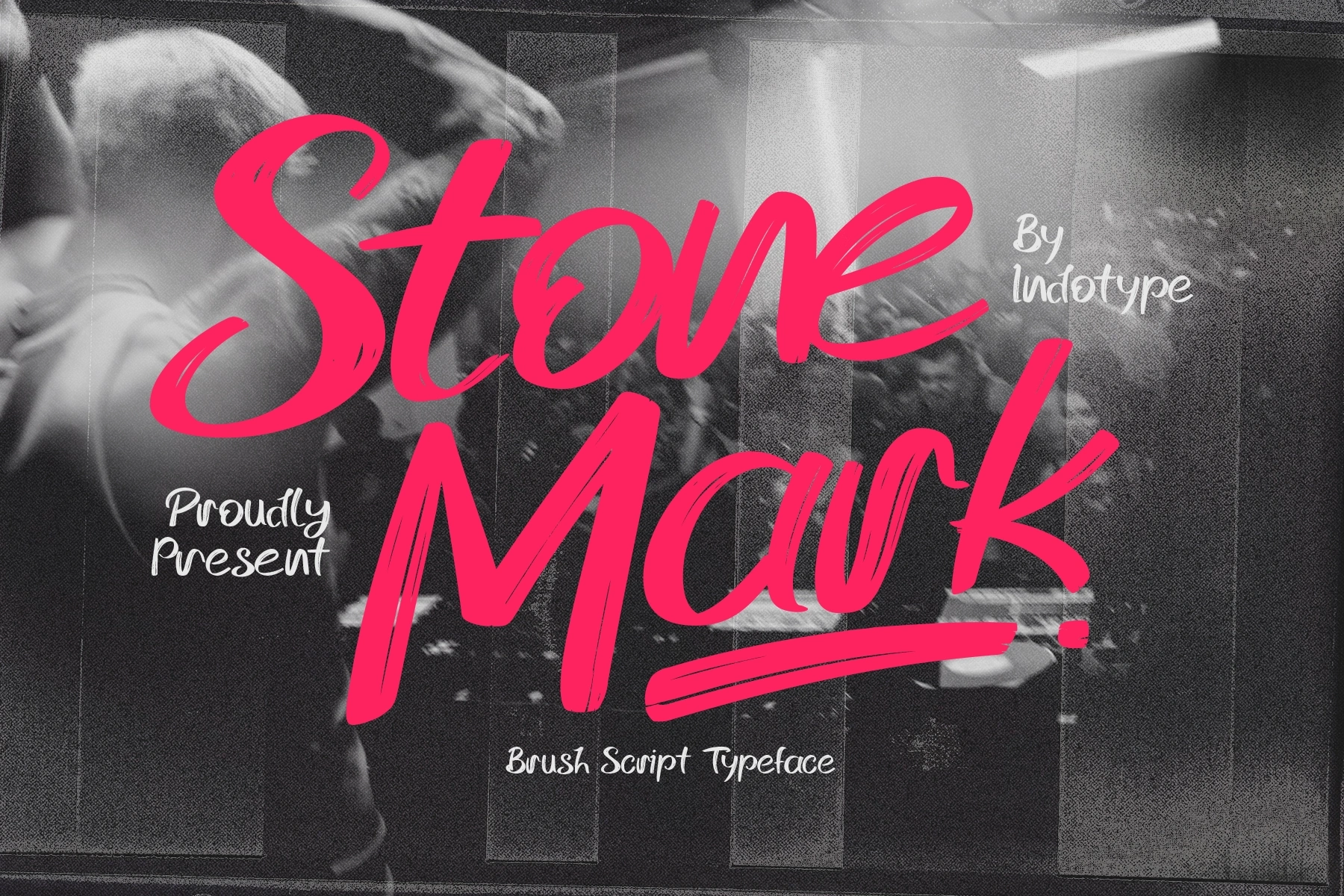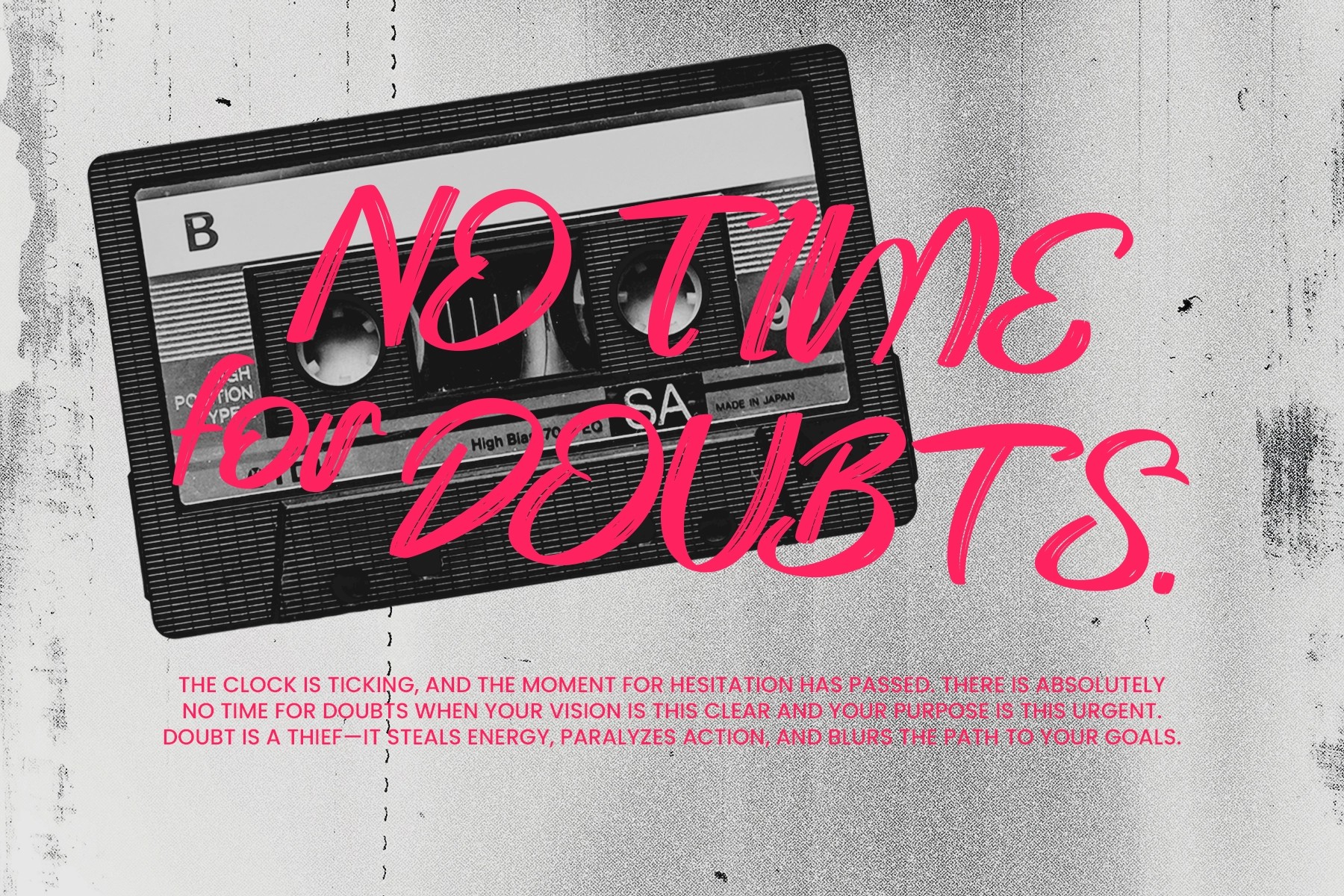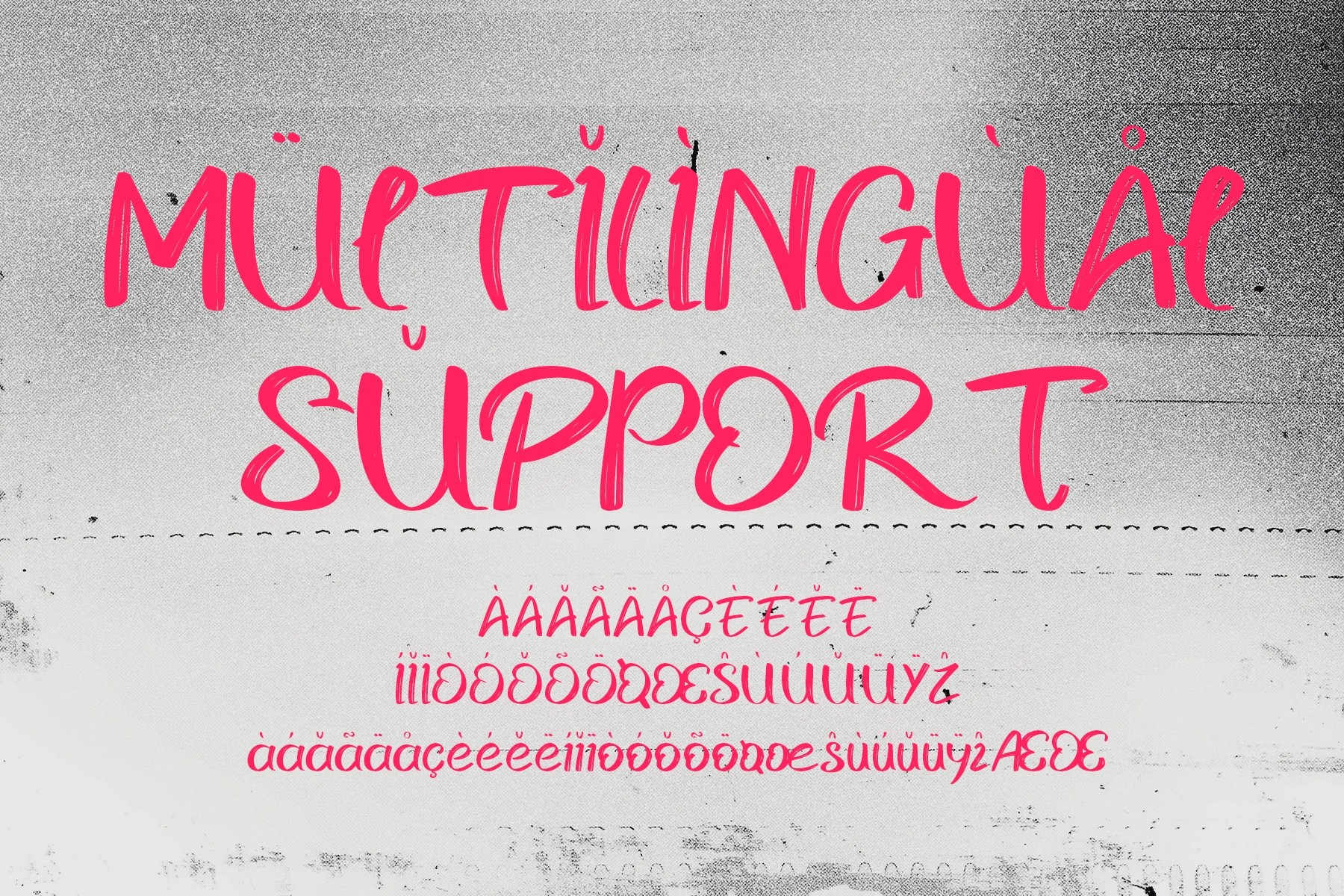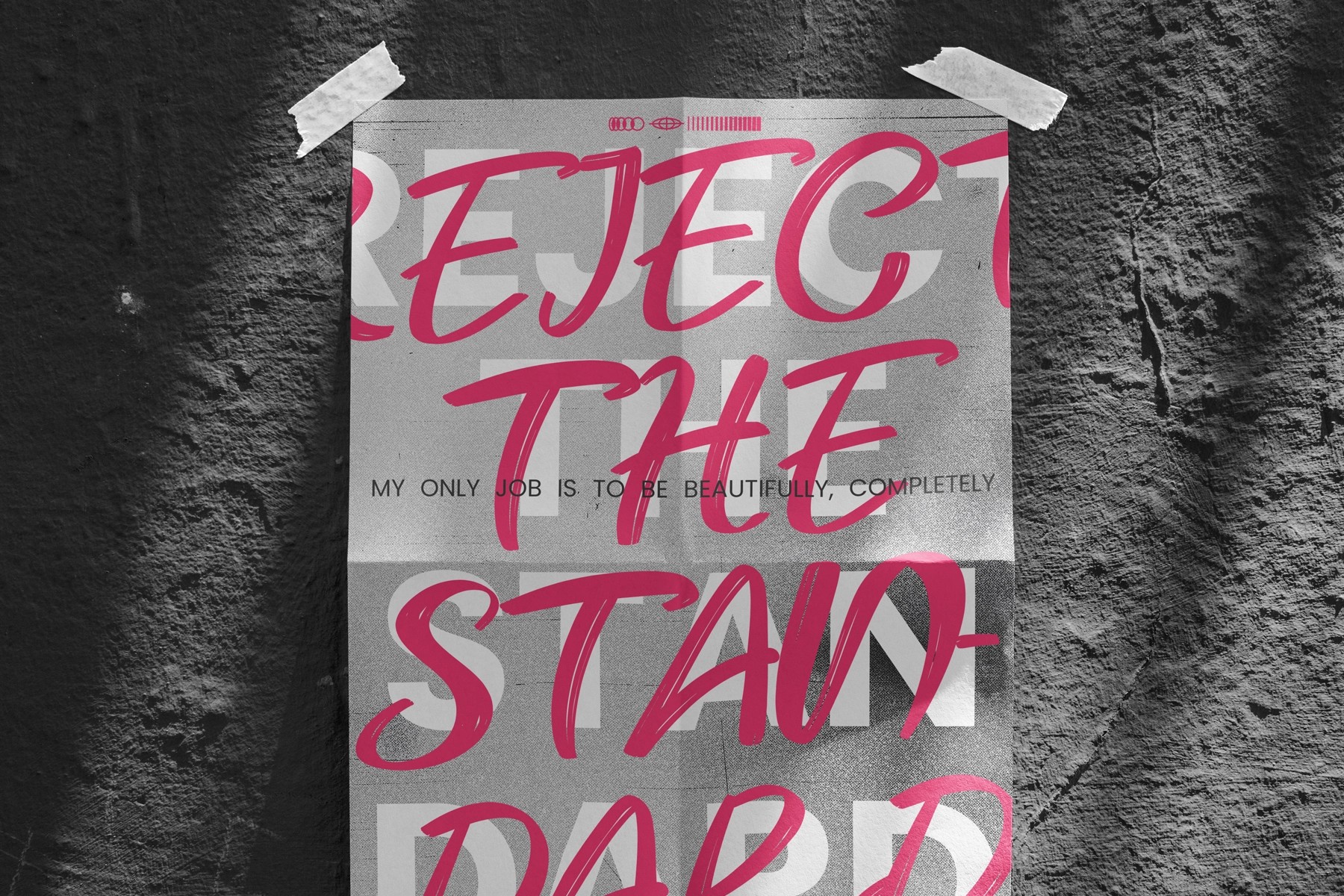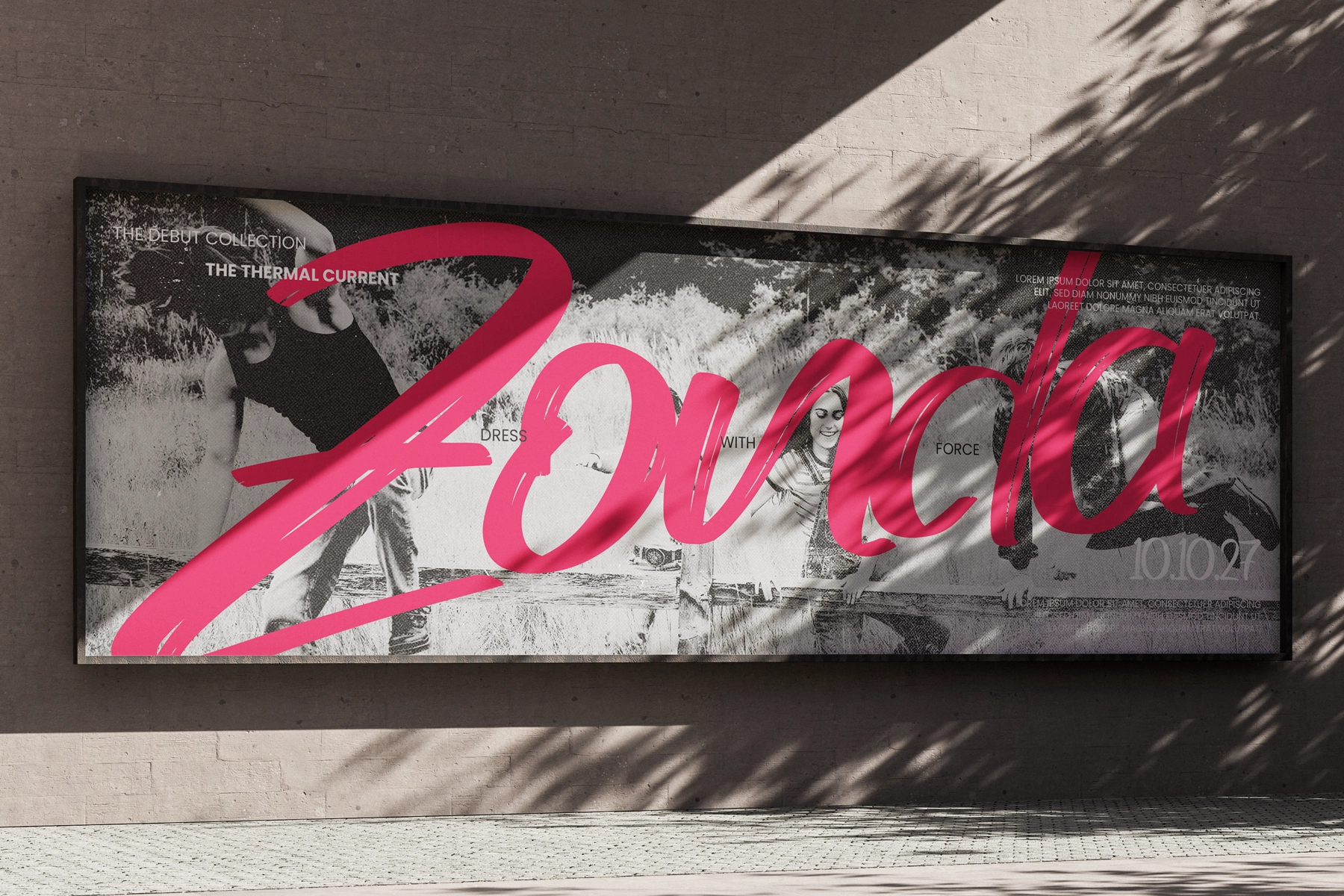
Stone Mark - Brush Script Font
Stone Mark is a bold brush script font with thick, ink-loaded downstrokes, bristle drag on the diagonal exits, and swashing capitals that move fast across a headline — closer to 1980s American sportswear lettering than to any calligraphic tradition. The stroke edges split and feather on the curves, and that split is the point: each glyph has the velocity of a marker hitting paper at speed.
It reads at its best in large, loose settings where the texture has room to show. Use it for streetwear brand logotypes, skate and surf graphics, band poster headlines, craft brewery labels, sports campaign titles, music festival branding, sneaker drop announcements, urban editorial layouts, and social quote cards with attitude.